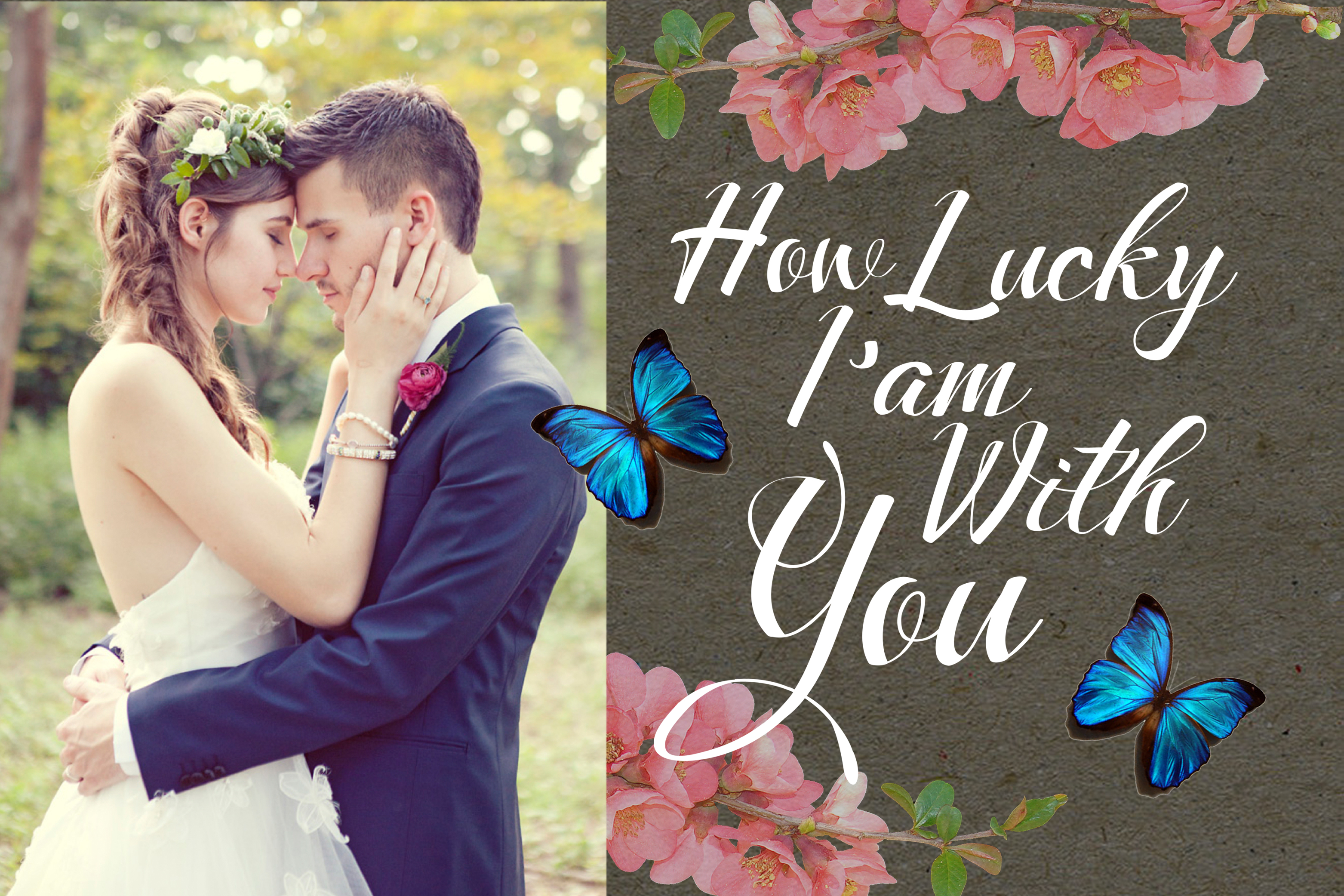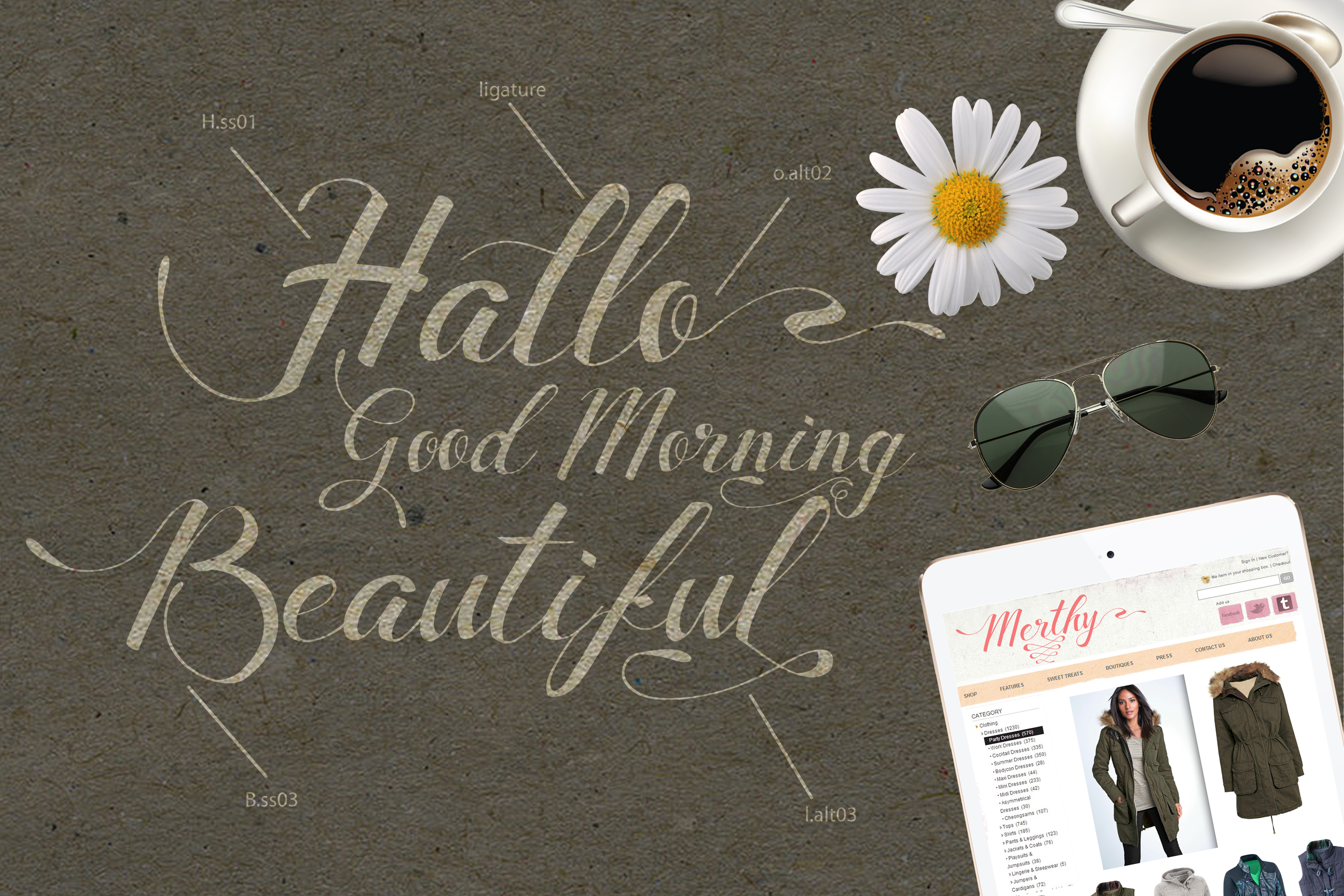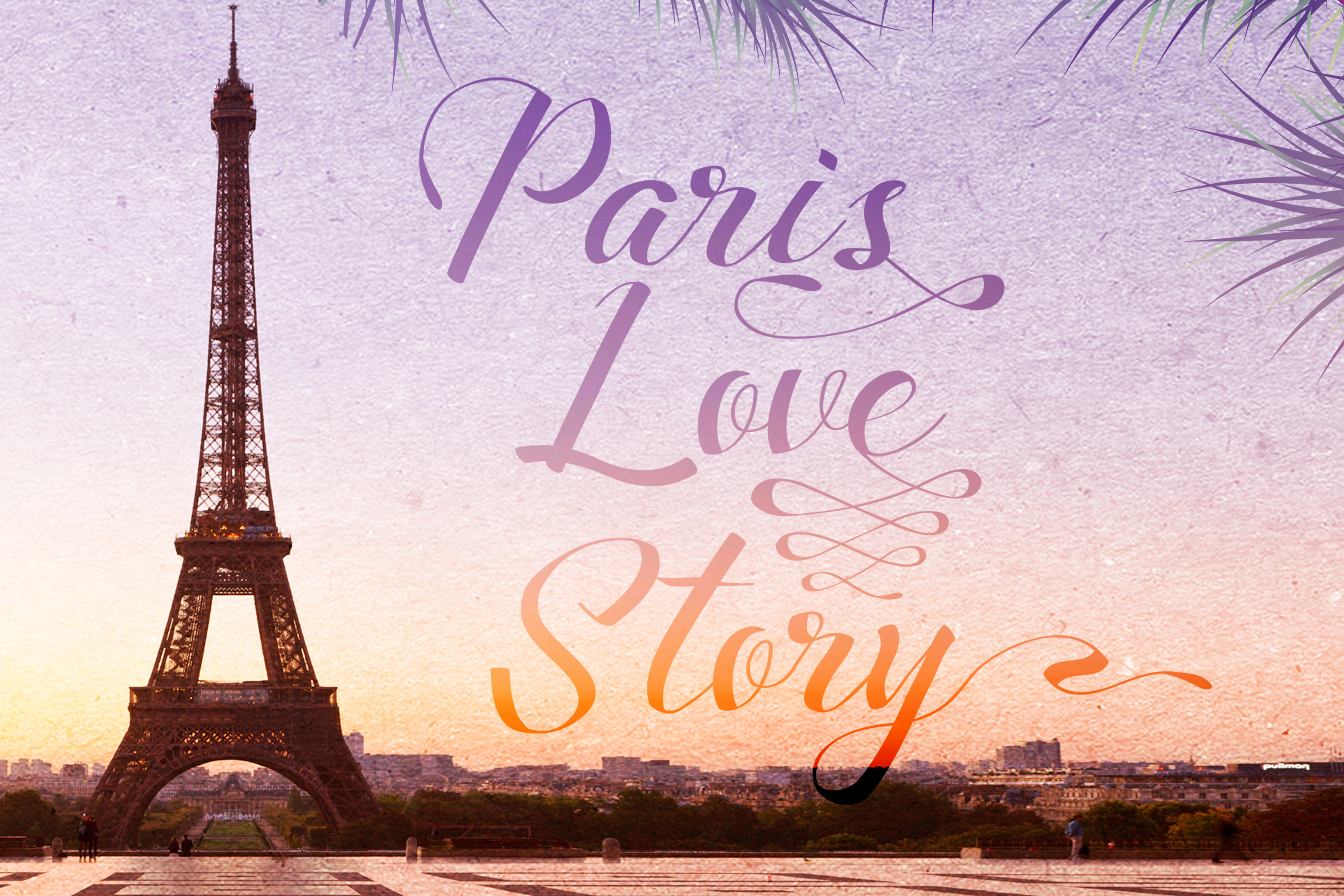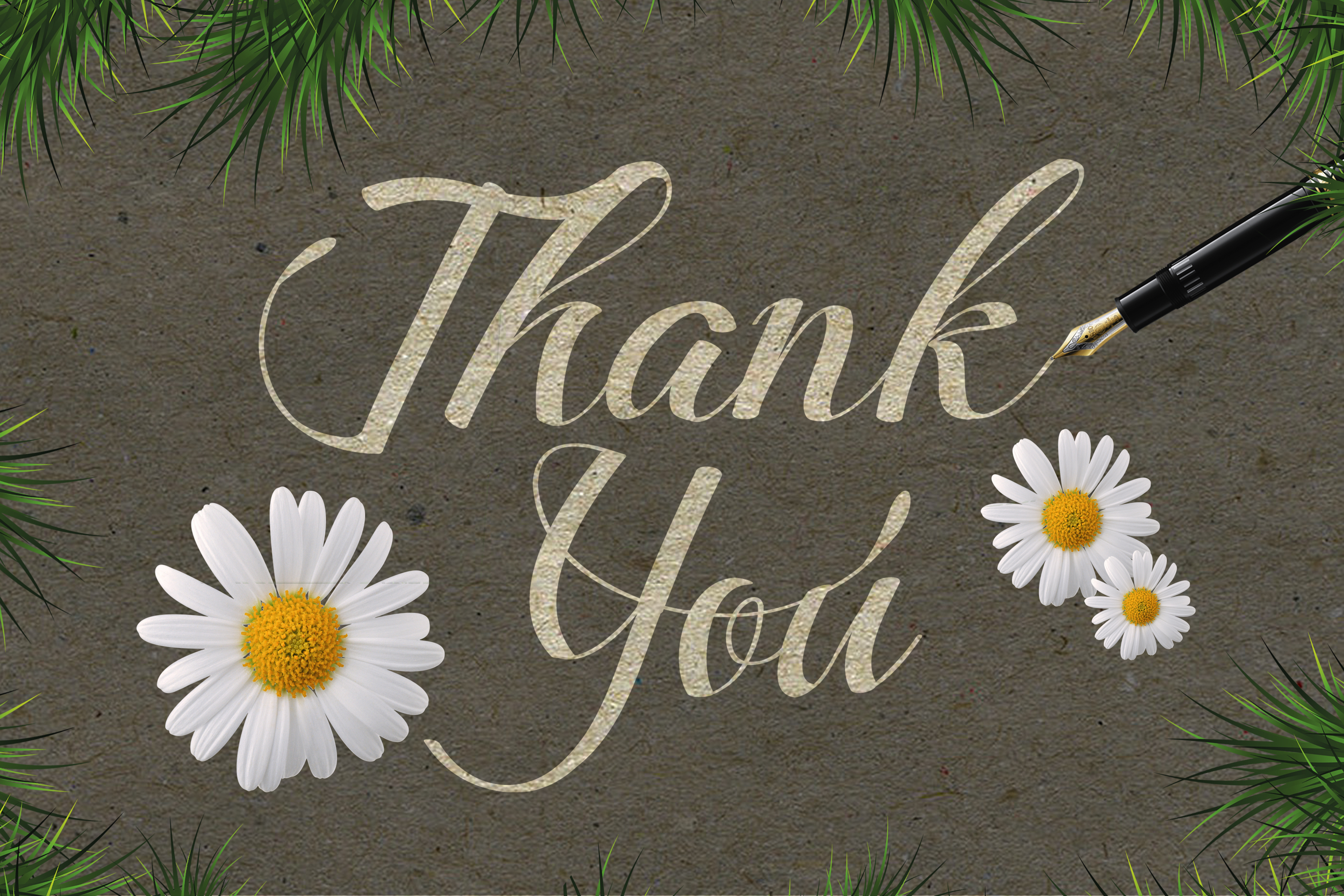
Introduction to Merthy Font
Have you ever found yourself staring at a blank canvas, trying to bring a creative project to life, only to be held back by the perfect font? For designers, the right typography can make all the difference between a mediocre design and a masterpiece. That’s why we’re excited to introduce you to the stunning Merthy Font, a high-quality, handwritten script font created by madeDeduk.
With over 350 glyphs to choose from, the Merthy Font is the perfect design resource for any creative project. Whether you’re working on a branding project, creating a logo, or simply looking for a beautiful font to add some flair to your text, Merthy Font is sure to impress. And the best part? You can download it for free, complete with a transparent background, making it easy to integrate into your design.
Key Features of Merthy Font
- High-quality design suitable for various creative projects, including graphic design, digital art, and web design.
- Unique characteristics include a modern, minimalist aesthetic and a versatile font style that adapts well to different text arrangements.
- Perfect for designers seeking a high-quality, easy-to-use font for their creative project, without the need for extensive font manipulation.
Honest Review: Merthy Font
As a designer, I’m always on the lookout for high-quality design resources to elevate my creative projects. Recently, I had the chance to work with the Merthy Font, and I’m excited to share my honest review with you.
- Unique and creative design aesthetic – Merthy Font stands out from the crowd with its unique and playful style.
- High-quality vector graphics – the font’s high-resolution vector graphics ensure that it looks great on any screen or print.
- Limited character set – Merthy Font has a relatively small character set, which may limit its usability for certain projects.
Overall, I’m impressed with the Merthy Font’s unique design and high-quality vector graphics. While it has some limitations, it’s still a valuable resource for designers working on creative projects. If you’re looking for a free design resource with a lot of character, Merthy Font is definitely worth checking out.
Merthy Font is ideal for use in creative projects such as graphic design, digital art, and print materials. Its unique design and high-quality rendering make it a valuable design resource for designers and artists.
Tips for Getting the Most Out of Merthy Font
To get the most out of Merthy Font, experiment with different font sizes, colors, and styles. Use the font in combination with other design elements, such as images and shapes, to create a visually appealing design.